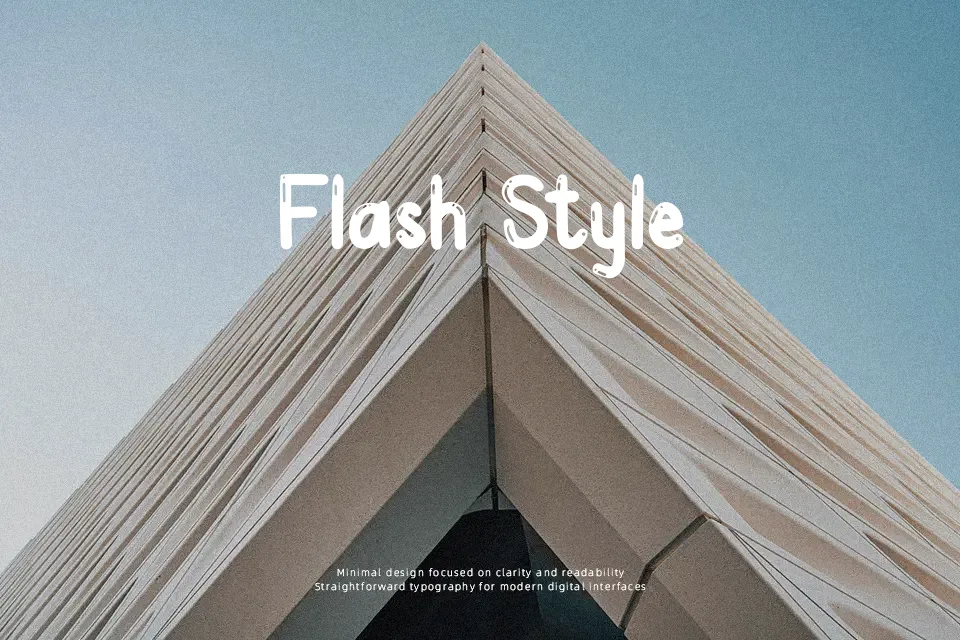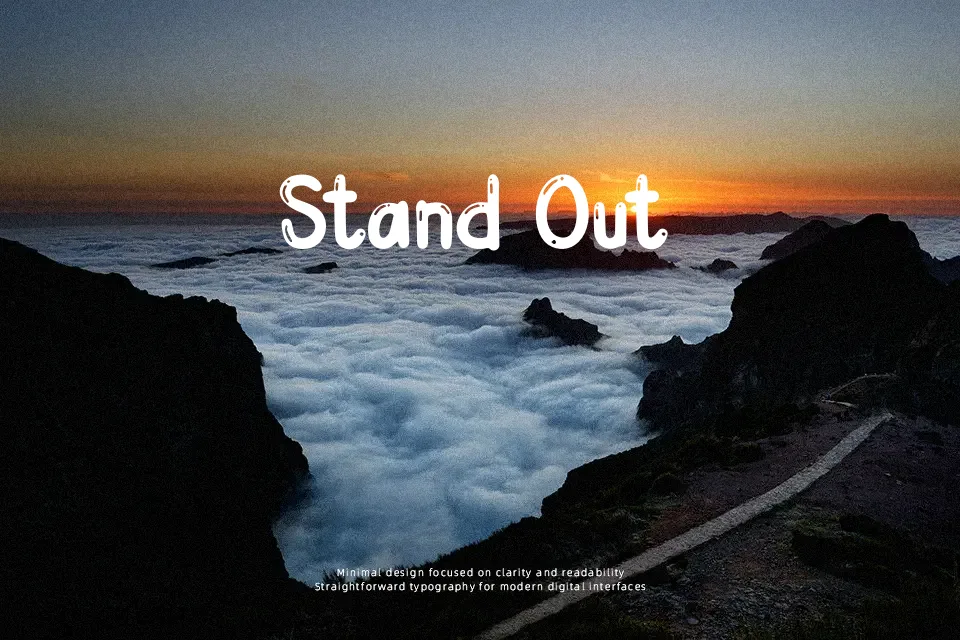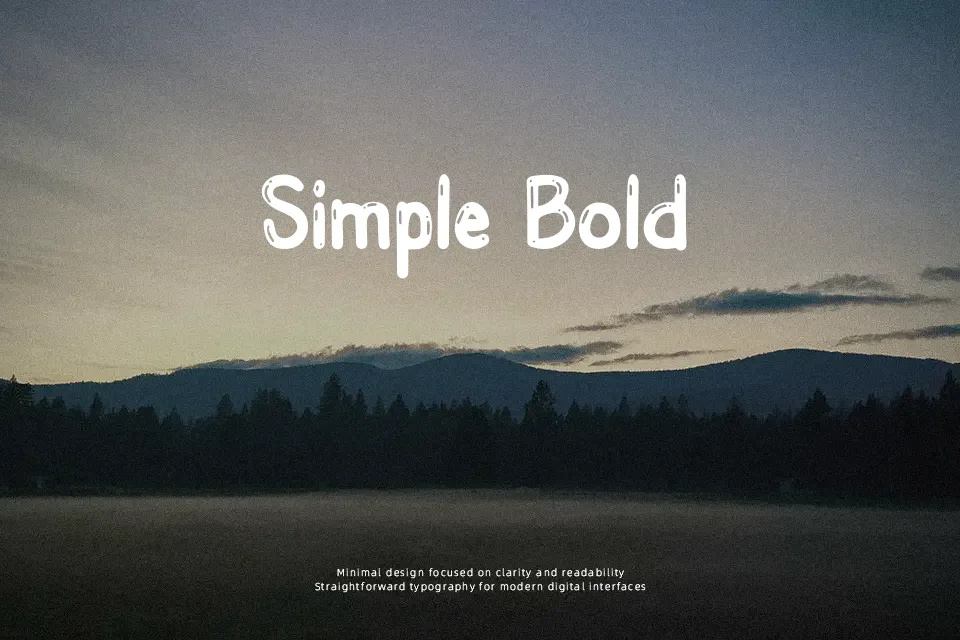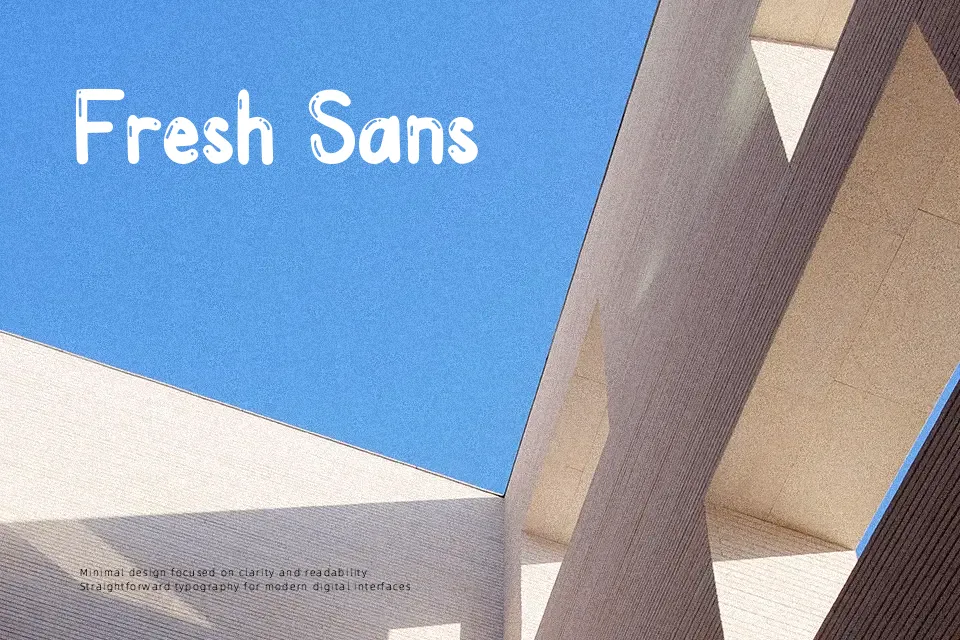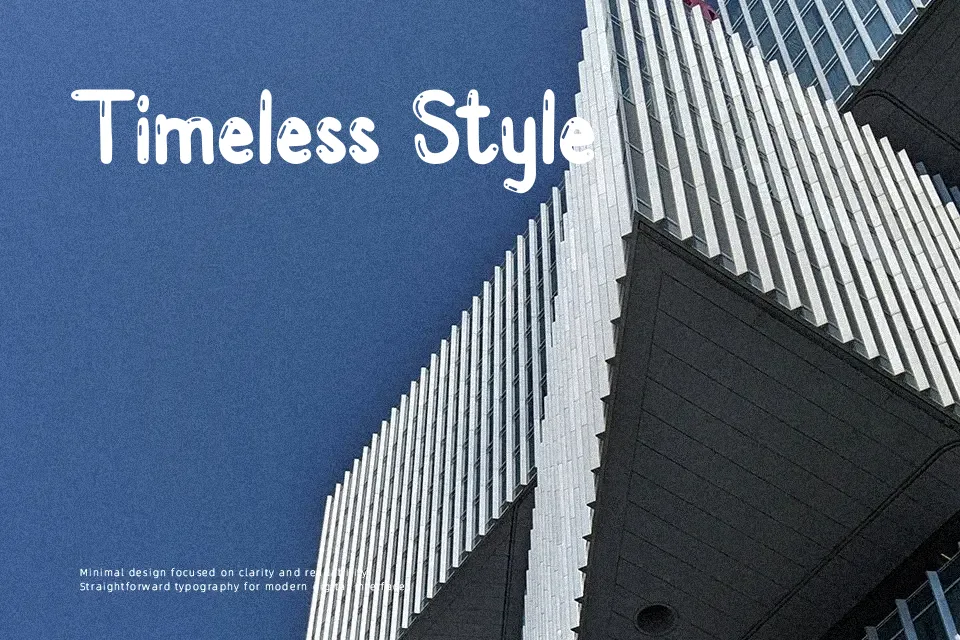
Udara Malam Font
Udara Malam Font is distinguished by exaggerated, plump strokes and gently curved terminals that give each character a bulbous, animated structure. The glyphs feature narrow proportions paired with substantial stroke weight, keeping internal counters tight and compact. Generous exterior letter spacing prevents adjacent shapes from colliding, preserving letterform recognition across headline banners, sticker designs, and youth apparel. Readability remains remarkably strong at prominent display scales where the bouncy contour variations can be appreciated. However, the dense weight and constricted apertures hinder comfort during continuous reading, making the design ill-suited for body paragraphs or compact data tables.
Best For: children’s book titles, animated video graphics, toy packaging, casual game menus
Not Ideal For: continuous body text, corporate annual reports, legal contracts, dense technical manuals